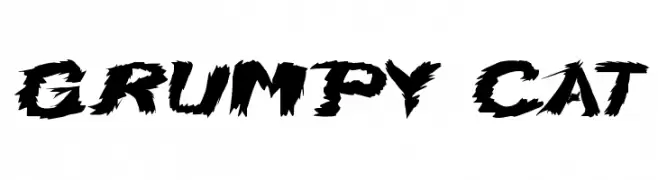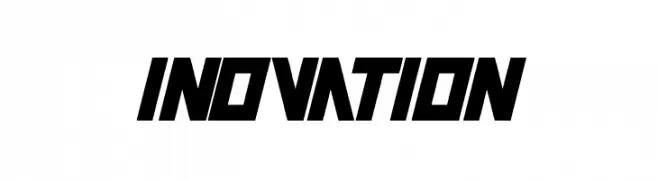
A bold, jagged font with a dynamic, aggressive style.
A bold, geometric font with a modern, industrial feel.
A futuristic, geometric font with bold, interconnected lines and rounded corners.
A decorative and abstract font with geometric shapes and lines.
A bold, futuristic font with geometric shapes and strong visual impact.
A bold, artistic font with sharp angles and a modern flair.
A bold, angular font with a futuristic and dynamic style.
A bold, brush-stroke font with a rugged, hand-drawn appearance.
A modern, multi-line font with a dynamic and futuristic style.
A bold, geometric font with a futuristic and industrial design.